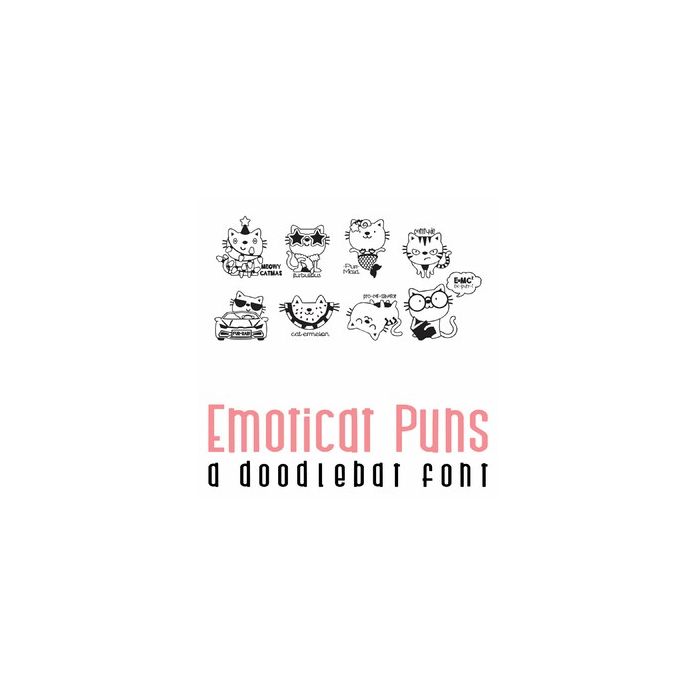
Emoticat Puns Doodlebat Font
This adorable doodlebat font features 26 cat puns. Perfect for cards, crafts, decor, planner stickers, parties, scrapbook pages and more!